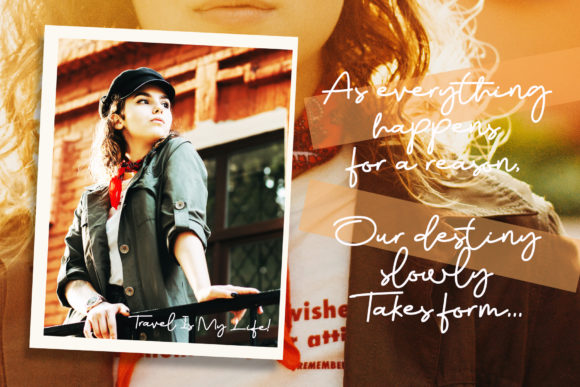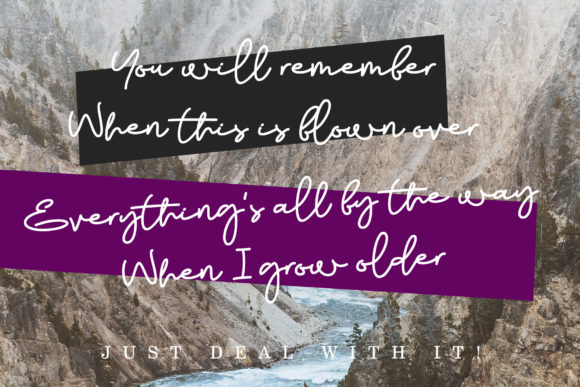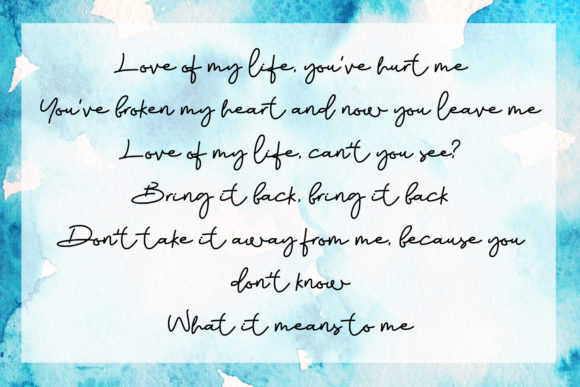
Introduction to Beauty Boutique Font
Beauty Boutique is a font with an incredibly sophisticated and classy feel.
It has a natural, yet elegant touch and great legibility .
Why Choose Beauty Boutique Font?